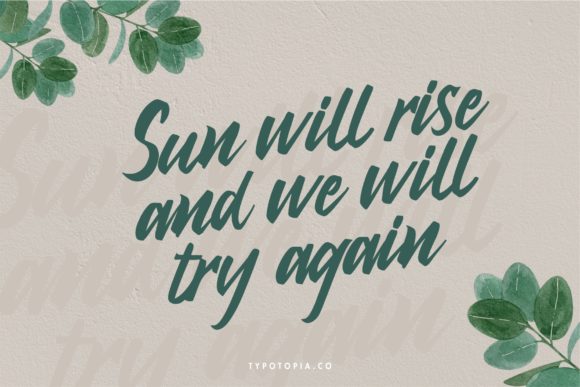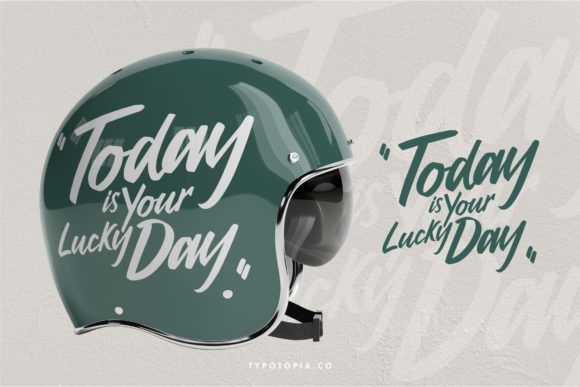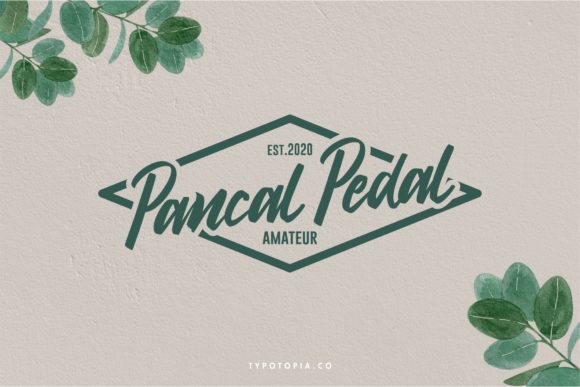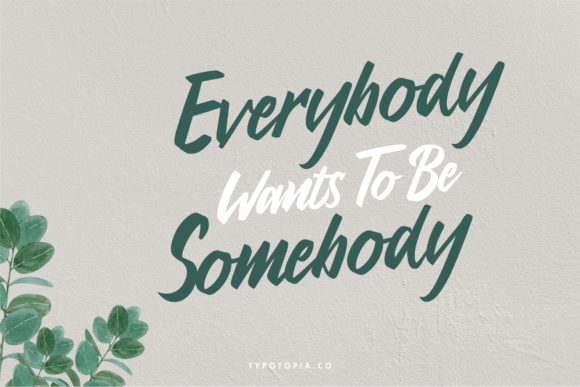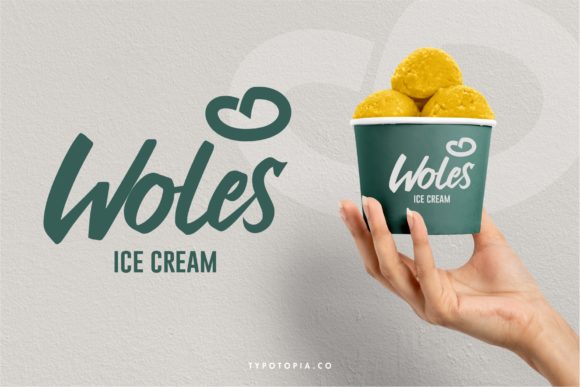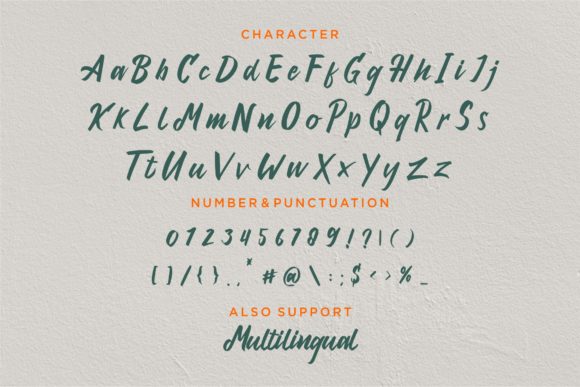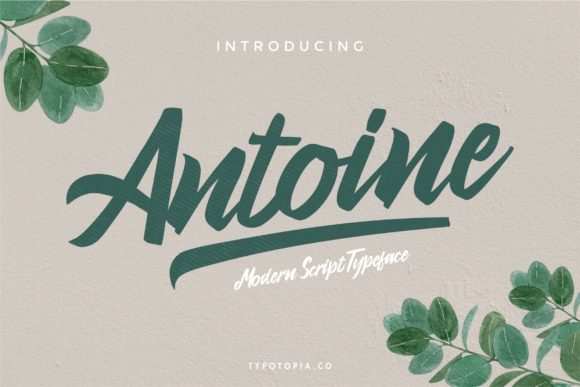
Introducing Antoine Font: Elevate Your Designs with Elegance and Sophistication
In the world of typography, few fonts manage to convey the perfect blend of elegance, sophistication, and personal touch. Antoine Font is one such exceptional typeface that has captured the hearts of designers and crafters alike. This stylish and incredibly elegant script font is a versatile tool that can transform any design into a masterpiece. Whether you’re working on wedding invitations, thank you cards, quotes, greeting cards, logos, business cards, or any other project that requires a handwritten touch, Antoine Font is the perfect choice.
The Characteristics of Antoine Font
Antoine Font boasts a range of characteristics that make it stand out in the realm of script fonts. Its fluid strokes and graceful curves lend an air of sophistication and luxury to any design. The font’s elegance is balanced with a degree of playfulness, making it suitable for a wide array of applications. Here are some key features that make Antoine Font a must-have for designers:
- Elegant and Sophisticated: Antoine’s refined lines and classic feel make it perfect for designs that require an upscale look.
- Versatile: From formal wedding invitations to casual greeting cards, Antoine Font adapts seamlessly to various design needs.
- Handwritten Touch: The font’s script nature adds a personal and human element to designs, making them more engaging and relatable.
Applications of Antoine Font
The versatility of Antoine Font is one of its most appealing qualities. Here are some of the many ways designers and crafters can use this beautiful font:
- Wedding Invitations: Add a touch of class and romance to wedding invites with Antoine Font, making the occasion even more special.
- Thank You Cards: Express gratitude in style with elegantly designed thank you cards.
- Quotes and Posters: Give quotes a sophisticated backdrop that makes them stand out.
- Greeting Cards: Whether it’s a birthday, Christmas, or any other occasion, Antoine Font can help create memorable greeting cards.
- Logos and Branding: For businesses looking to convey elegance and professionalism, Antoine Font can be a valuable asset in logo design and branding.
- Business Cards: Stand out in the professional world with business cards that exude sophistication and style.
Tips for Using Antoine Font Effectively
To make the most of Antoine Font, consider the following tips:
- Pair with Complementary Fonts: Antoine Font pairs well with clean, sans-serif fonts for a balanced look.
- Adjust Letter Spacing: Tweaking the letter spacing can enhance readability and aesthetic appeal.
- Experiment with Colors: While black is classic, experimenting with soft colors can add a unique touch to your designs.
- Use it for Headers and Titles: Antoine Font shines in headers and titles, adding an immediate touch of elegance.
Antoine Font is more than just a script font; it’s a design element that can elevate your projects to new heights of elegance and sophistication. Its versatility, combined with its classic yet modern feel, makes it an indispensable tool for designers and crafters. Whether you’re creating wedding invitations, business cards, or any other design that calls for a personal touch, Antoine Font is sure to impress. Embrace the beauty of Antoine Font in your next project and witness how a simple typeface can transform your designs into timeless pieces of art.